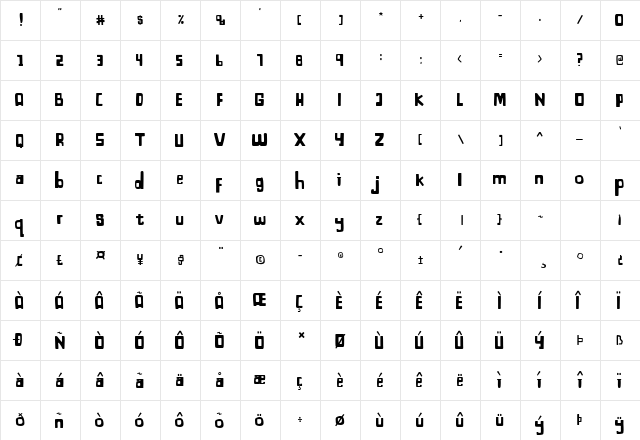
Bagayaga Regular
| Designer | Zain Fahroni |
Design Context for Bagayaga Typeface
Bagayaga is a composed and adaptable typeface that performs quietly and consistently across a wide range of design contexts.